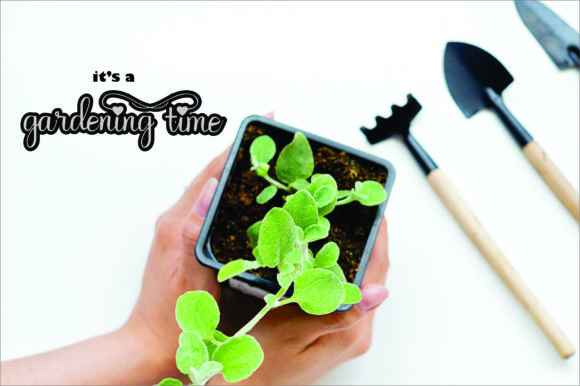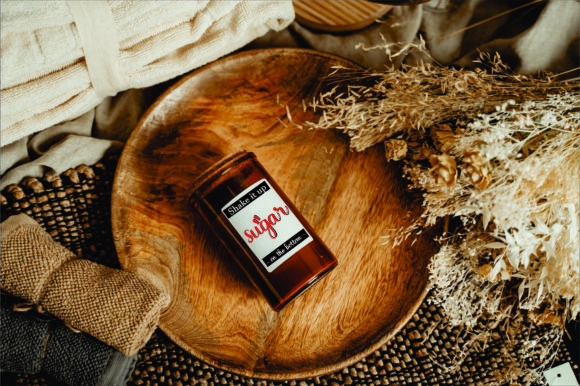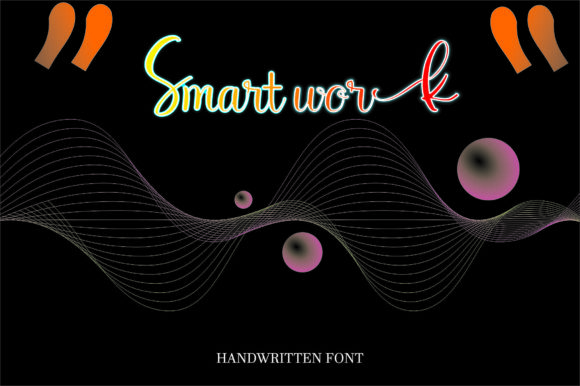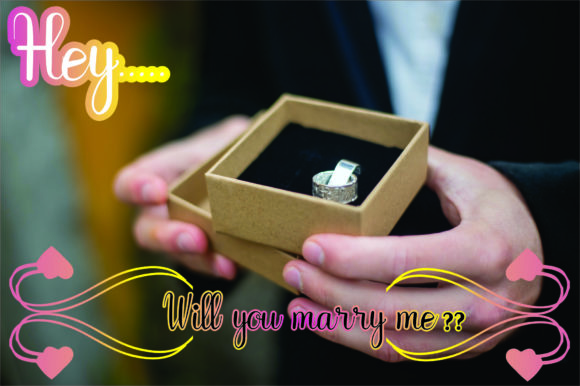
About Sandria Font
Sandria is a script fonts and modern calligraphy fonts. It has a charming slim body that is quite straight and clean, made with care for logos, website headers, fashion designs, wedding card designs, and more. Add this lovely font to your creations and take your designs to the next level!